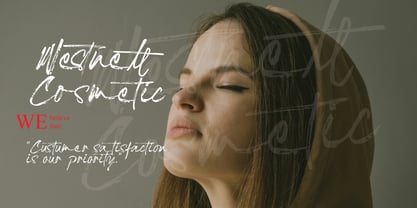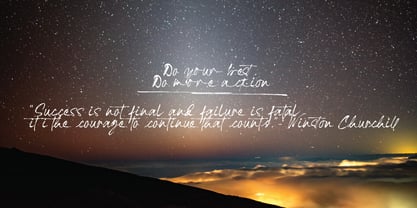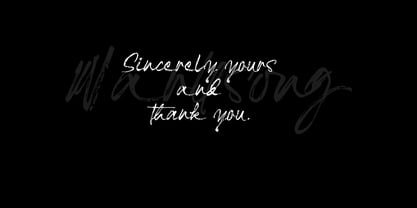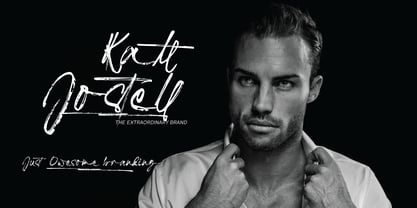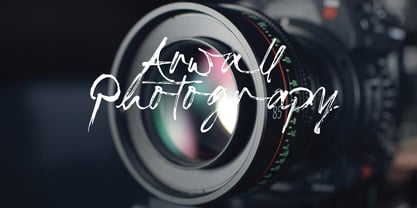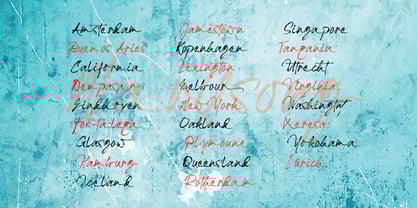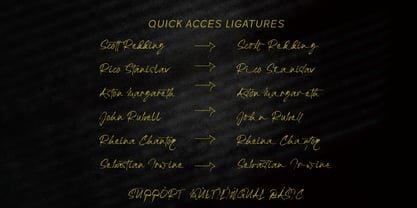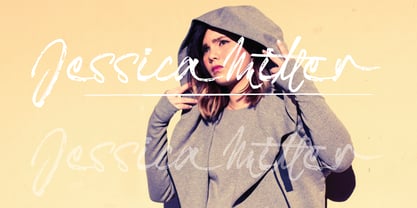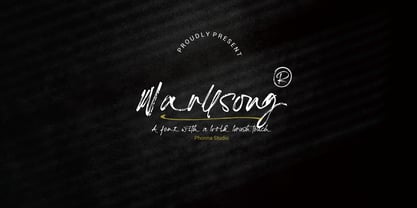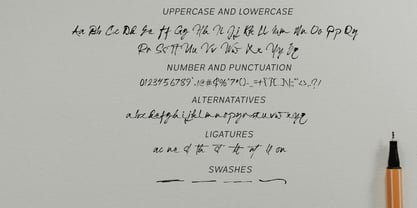
Narllsong
The Narllsong Font Family was designed by Muhammad Suhery and published by Phonnastudio. Narllsong contains 1 styles.
Narllsong is a dynamic and engaging handwritten font characterized by its textured appearance. The creation of the letters involves a technique that utilizes strong and rapid strokes on paper, resulting in a distinct rough, and dry brush style. We have meticulously refined the letters digitally; where necessary, we developed several alternative forms and ligature glyphs to ensure cohesion. This font performs exceptionally well with both lengthy and concise texts, making it suitable for a wide range of designs. It can be effectively employed for various applications, including projects, quotes, branding, and extended written pieces. Additionally, this font stands out for short phrases or single-word text, lending itself well to product branding, company logos, and covers for books and magazines.